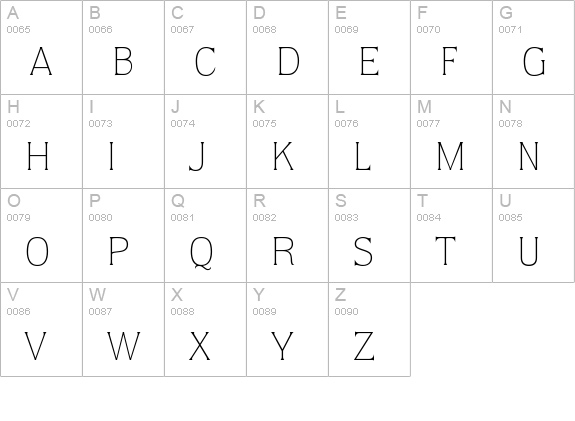
Stack Light SSi Light is a refined, elegant variant in the Stack typeface family \xE2\x80\x94 well suited to elegant body text, refined sub-headings, and luxury branding.
Stack Light SSi Light is a stunningly elegant font that exudes a sense of simplicity and sophistication. With its clean lines and subtle curves, this font is perfect for projects that require a modern and refined touch. The light weight of Stack Light SSi Light adds a delicate and airy feel to any design, making it ideal for creating beautiful logos, branding materials, website headers, and more. Whether you're working on a professional project or a personal creative endeavor, this font will effortlessly elevate your design to new heights. What sets Stack Light SSi Light apart is not only its exceptional aesthetics but also the fact that it is available for free download at FontsMarket.com. This means that designers, creators, and enthusiasts alike can easily access this versatile font without any cost or restrictions. No longer do you have to compromise on quality or break the bank to achieve the look you desire. Stack Light SSi Light is here to offer you the best of both worlds - premium design and accessibility. So go ahead, unleash your creativity and download Stack Light SSi Light today from FontsMarket.com.